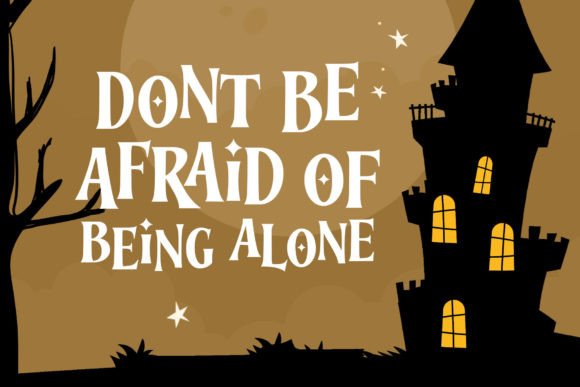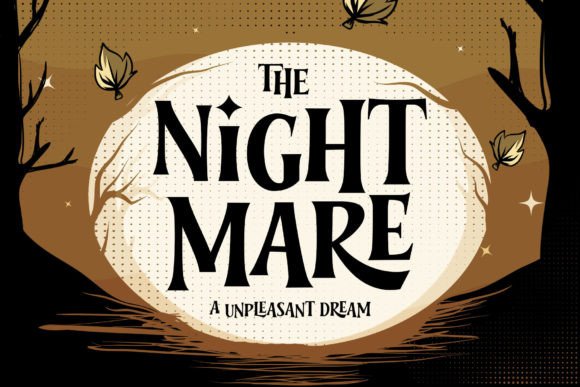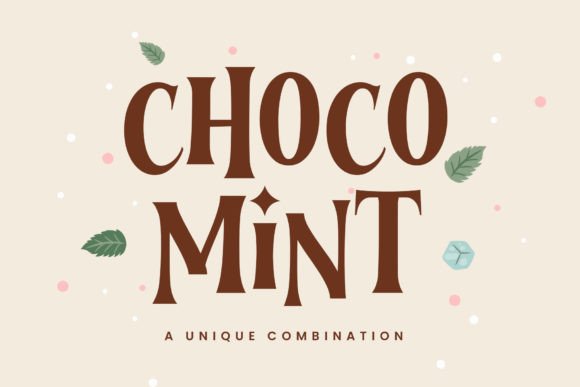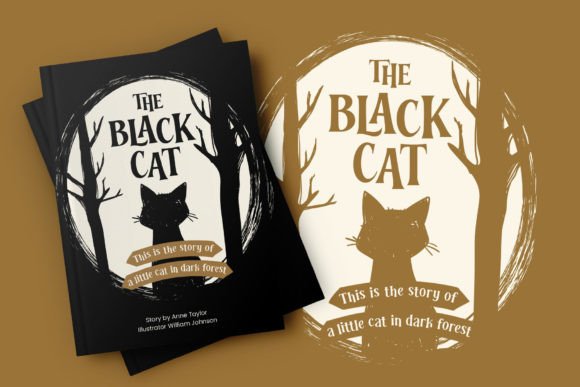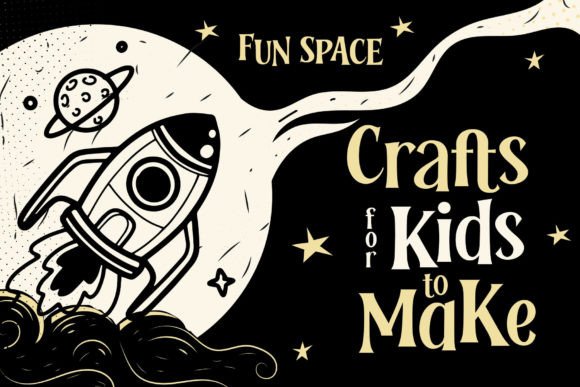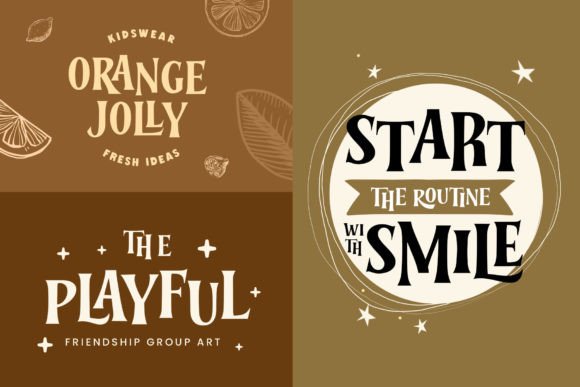
Introduction to Nightmare Crawler Font
Introducing Midnight Crawler, a playful horror font.
This font also has scary, spooky, joyful, and fun looks at the same time Inspired by horror cartoons and fantasy movies.
Key Features of Nightmare Crawler Font